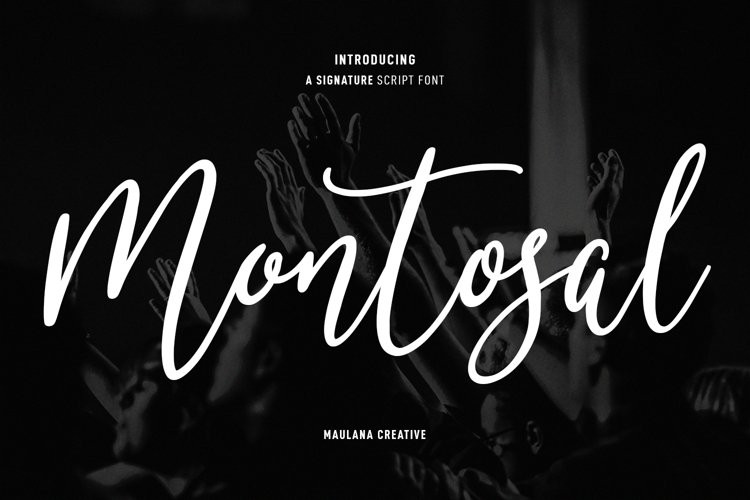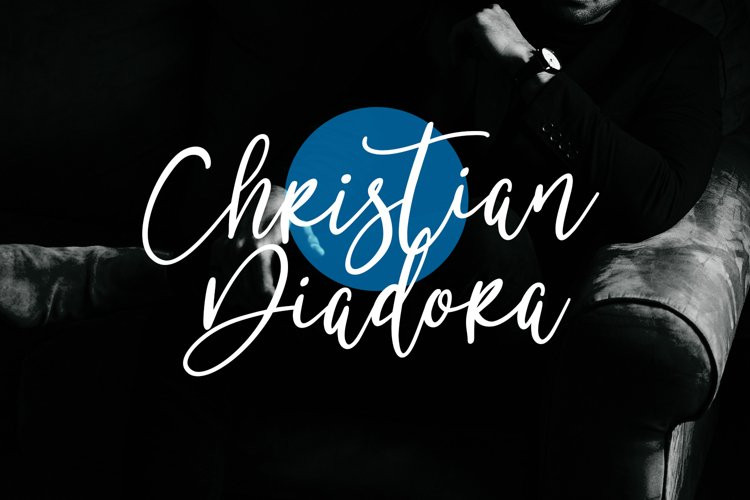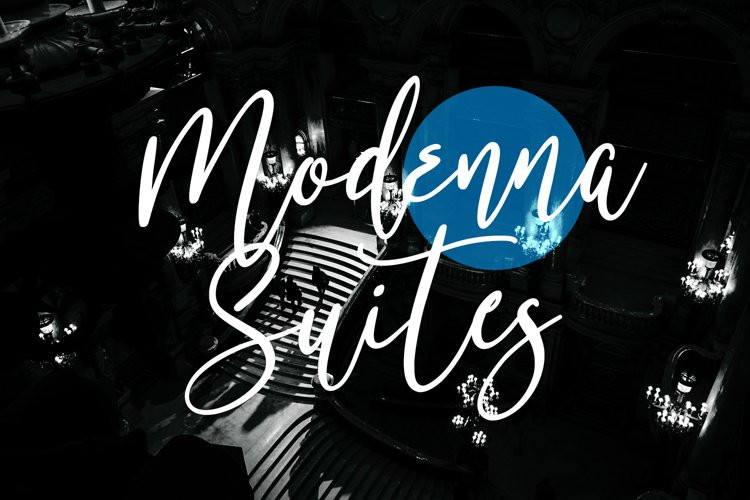
Montosal Font
Montosal FontMontosal is a cursive signature script font. With regular contrast stroke, fun character with a bit of ligatures and alternates. To give you an extra creative work. Montosal font support multilingual more than 100+ language. This font is good for logo design, Social media, Movie Titles, Books Titles, a short text even a long text letter and good for your secondary text font with sans or serif. Make a stunning work with Montosal font.